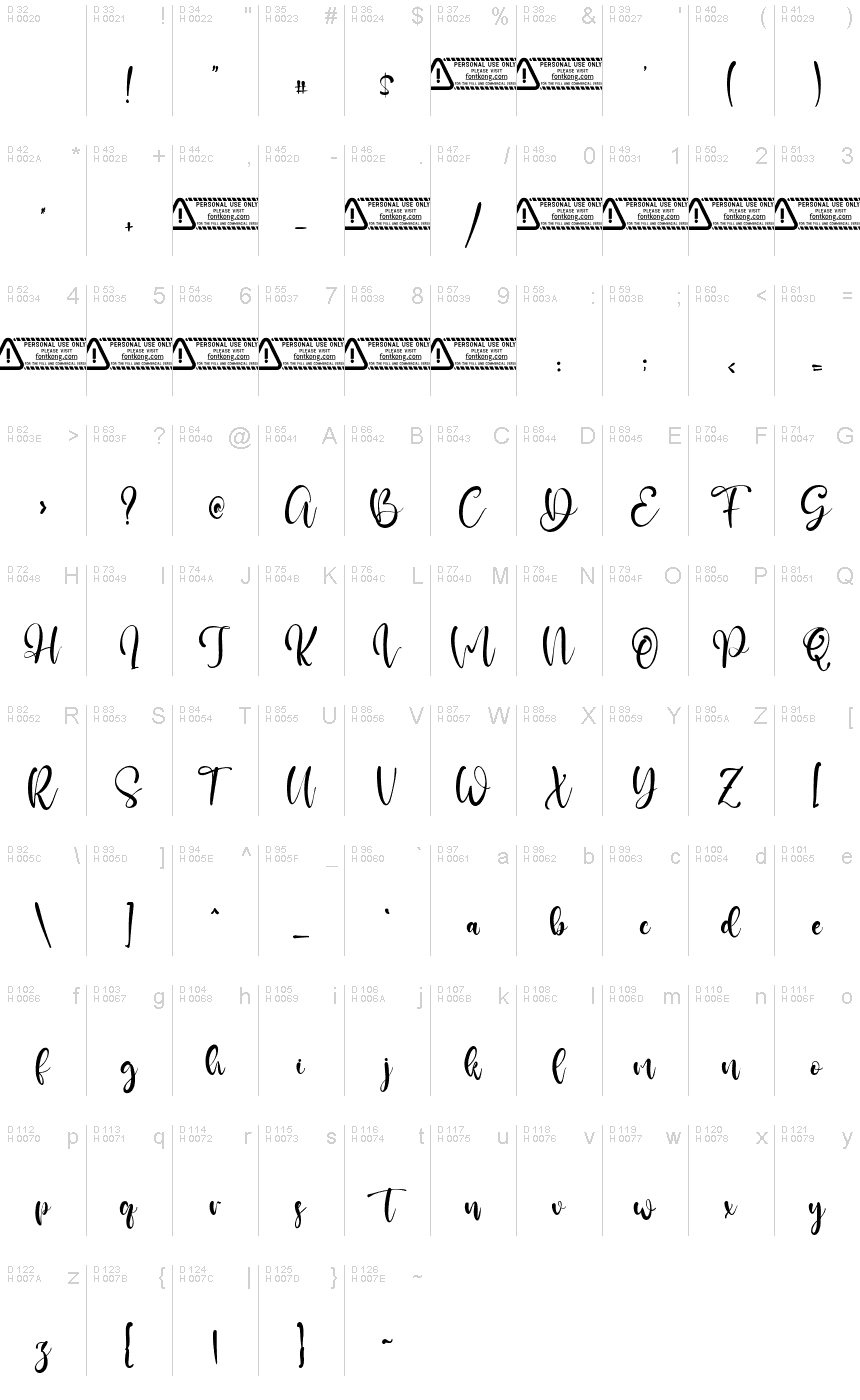
Jullia Vella
Jullia Vella, designed by Kong Font, is a stunning modern script font that combines elegance with simplicity. With its semi-light weight, this typeface is perfect for projects that require a delicate touch such as wedding invitations, feminine branding, and fashion editorials. The flowing curves and fluid strokes of Jullia Vella make it an excellent choice for any design project where beauty and sophistication are key. Whether you're crafting social media graphics or creating a logo for your business, Jullia Vella is sure to add a touch of refinement to your designs.